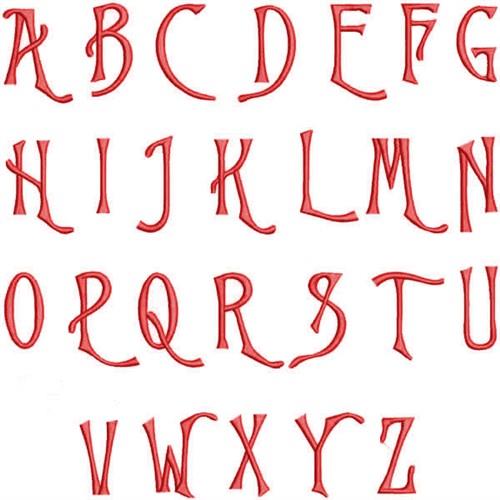
American Nightmare Font Embroidery Font - Decorative Style with Sharp Edgy Letters - PES, DST & 8 formats by Unicorn Creatives and other embroidery fonts available at EmbroideryDesigns.com.
Unicorn Creatives is happy to present American Nightmare Font Embroidery Font - Decorative Style with Sharp Edgy Letters - PES, DST & 8 formats machine embroidery font which has Bold decorative machine embroidery font with sharp, edgy letters perfect for adding drama to costumes or themed décor. Ideal for jackets and bags. Available in PES, DST & 8 other formats. included. If you would like to view more embroidery fonts and alphabets please search our embroidery fonts page.
American Nightmare Font Embroidery Font - Decorative Style with Sharp Edgy Letters - PES, DST & 8 formats